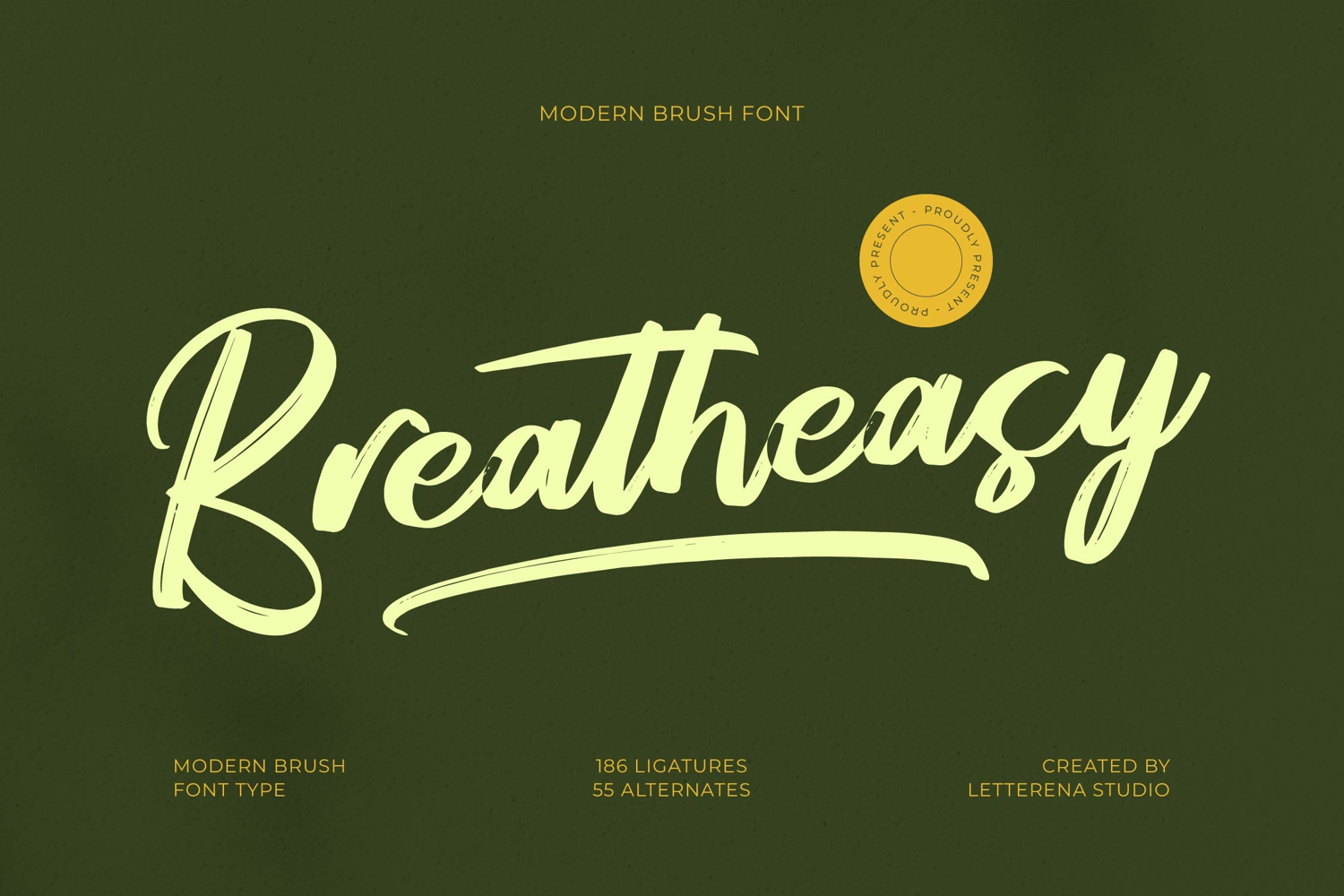
Breatheasy Modern Brush Font Type
Breatheasy
Breatheasy Italic
Breatheasy - Modern Brush Font Type , from Letterena, is a Luxury Script font, suitable for any projects such as: logos, branding projects, homeware designs, product packaging, mugs, quotes, posters, shopping bags, t-shirts, book covers, name card, invitation cards, greeting cards, label, photography, watermark, special events, and all your other luxury and beautiful projects that need a Luxury Script taste.
186 Ligature 55 Alternate & Swashes